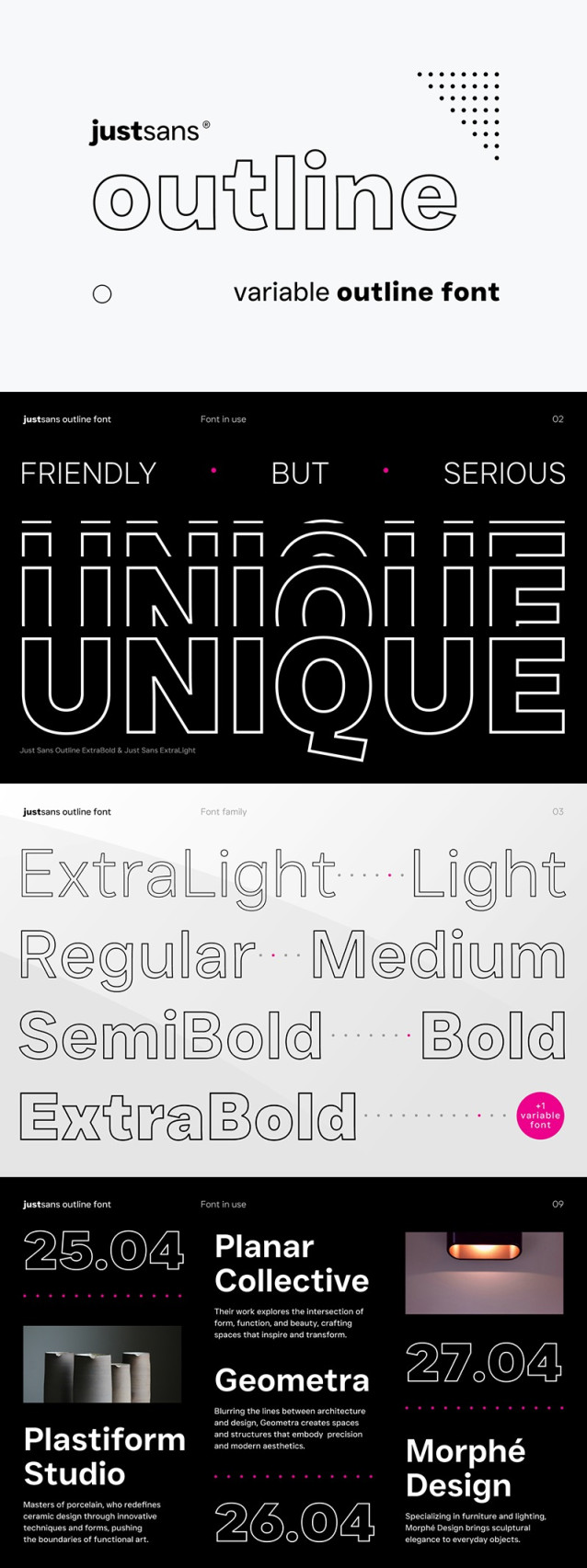
Just Sans Outline Font
JUST Sans Outline is a clean, minimal display typeface with modernist warmth, geometric clarity, and a distinctive, friendly edge.
Designed to pair perfectly with our best-selling JUST Sans, it adds dimension and contrast while staying crisp and elegant.